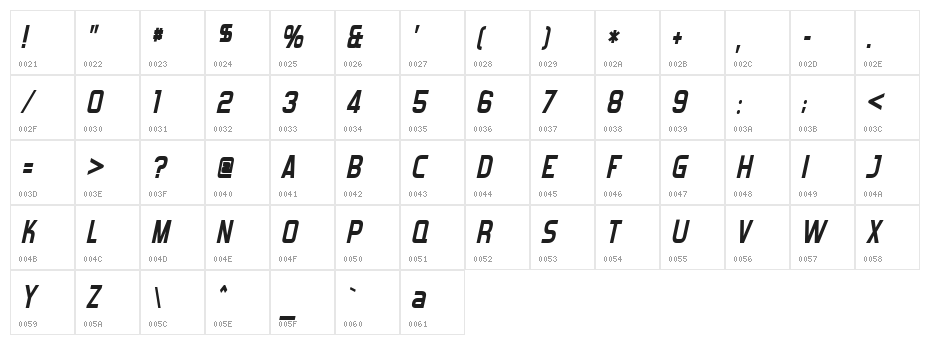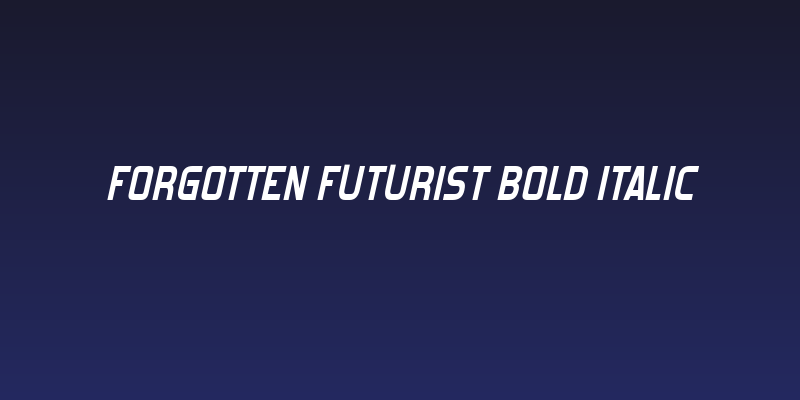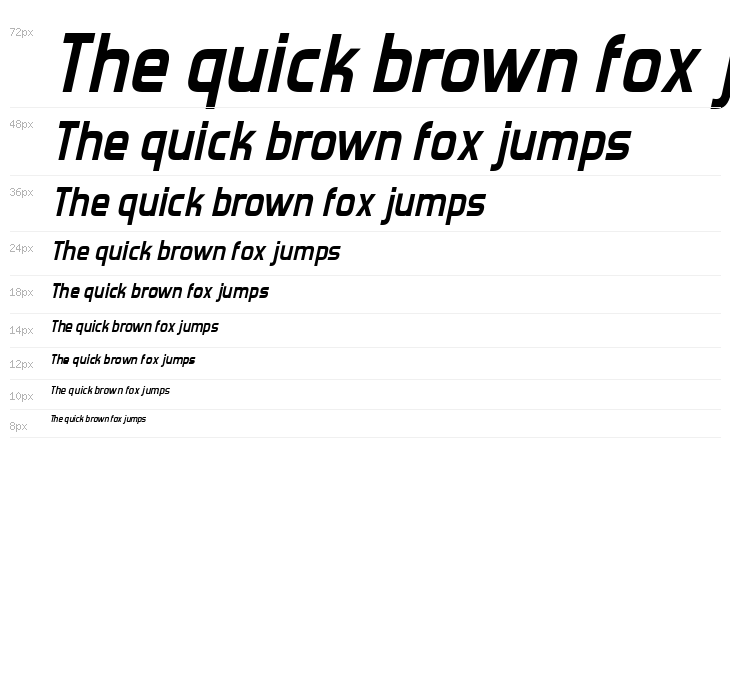
Forgotten Futurist Bold Italic Font
Forgotten Futurist Bold Italic Description
This font features a bold and italicized style with a futuristic and dynamic appearance. The characters are slightly slanted, giving a sense of motion and speed. The strokes are thick and consistent, providing a strong presence on the page. The design is clean and modern, with a geometric influence that enhances its readability. The uppercase and lowercase letters are well-proportioned, and the numerals are clear and distinct. Special characters are included, maintaining the font's cohesive look. This font is suitable for projects that require a contemporary and energetic feel.
| Proposed Projects | Ideal for technology branding, sci-fi posters, modern advertising, and dynamic web design. |